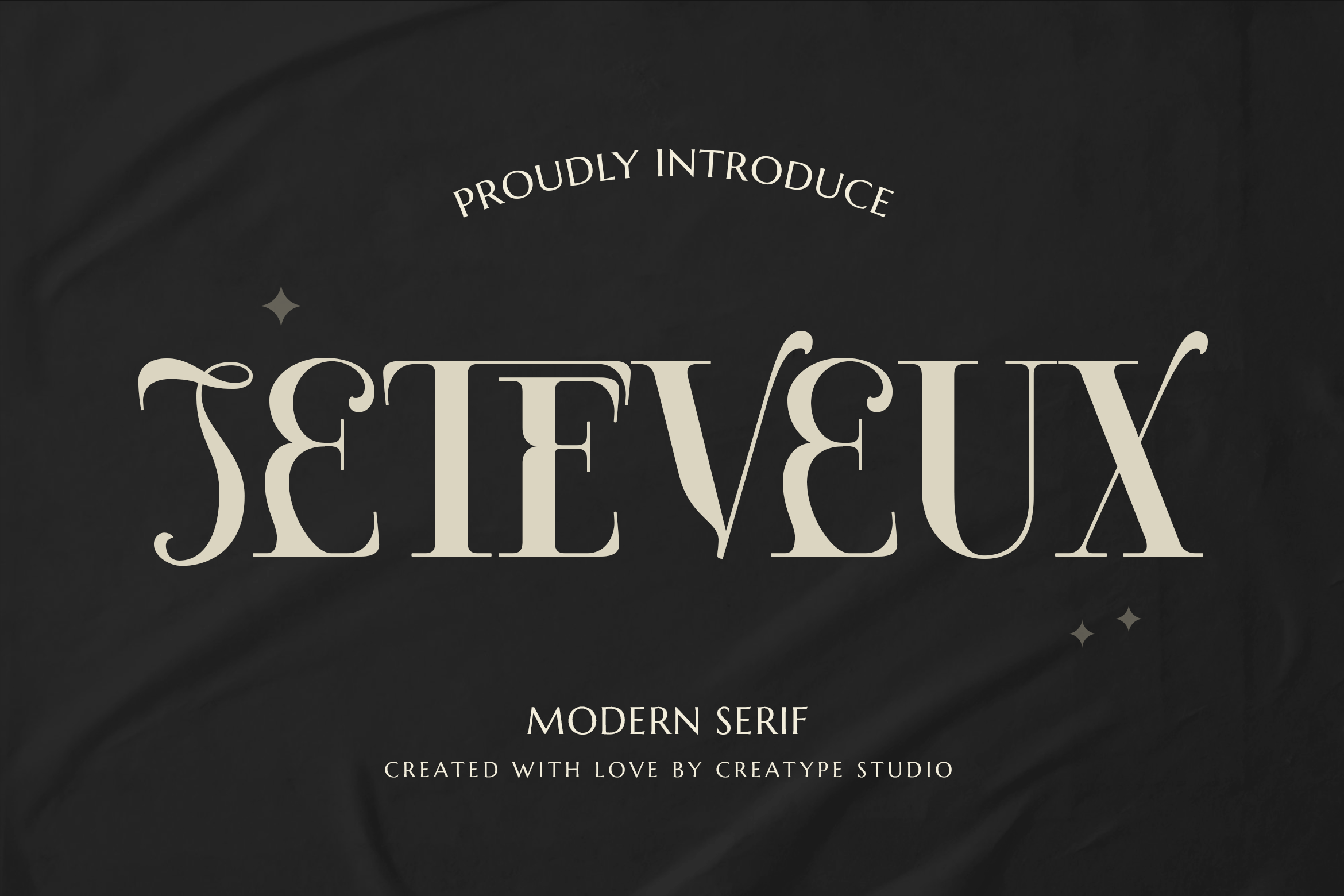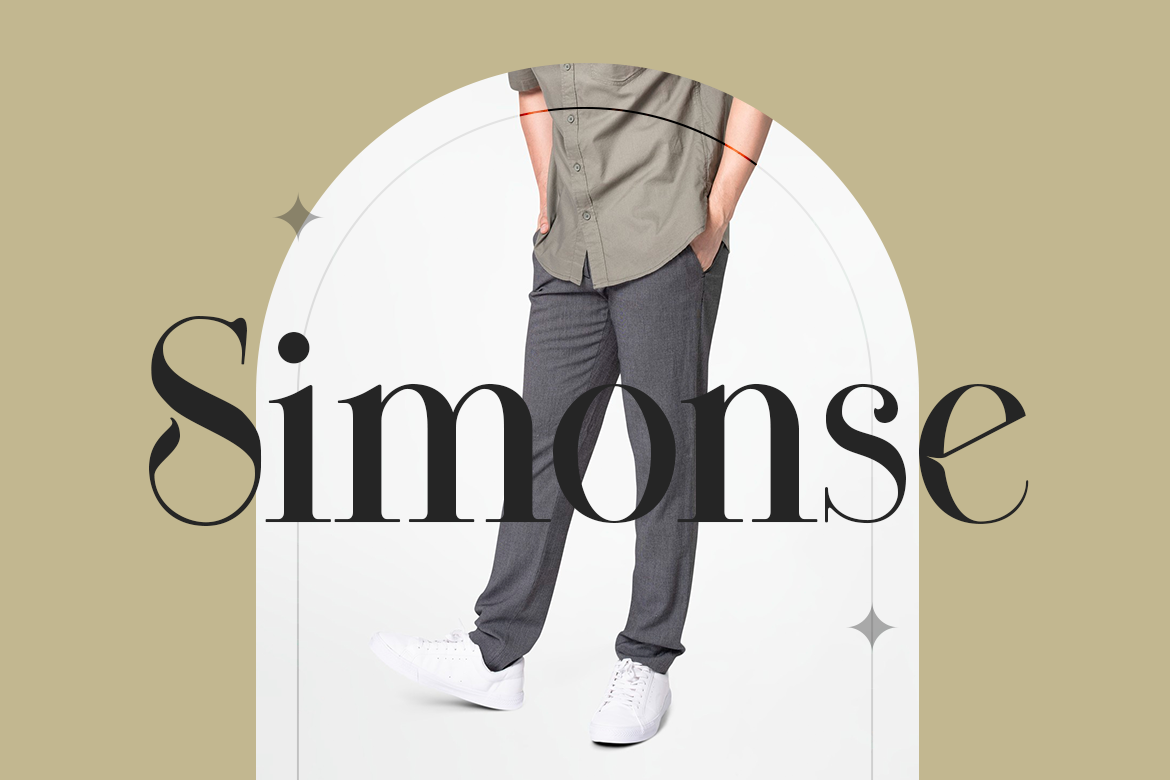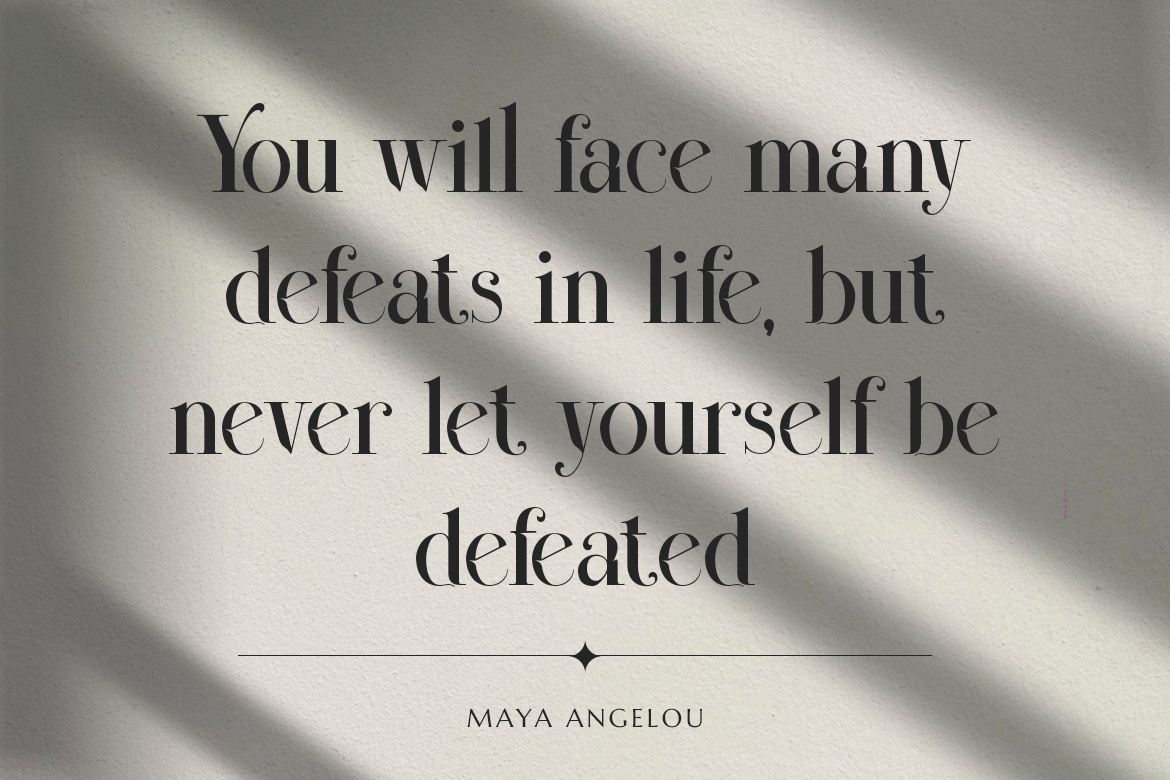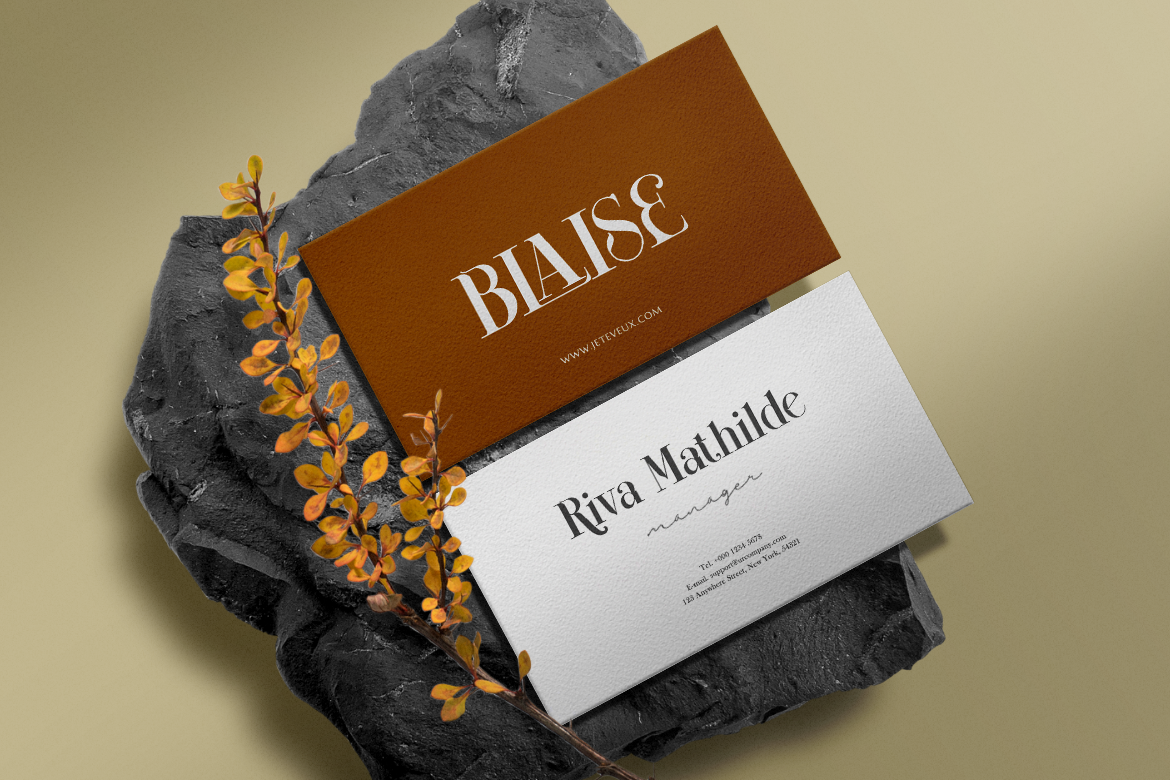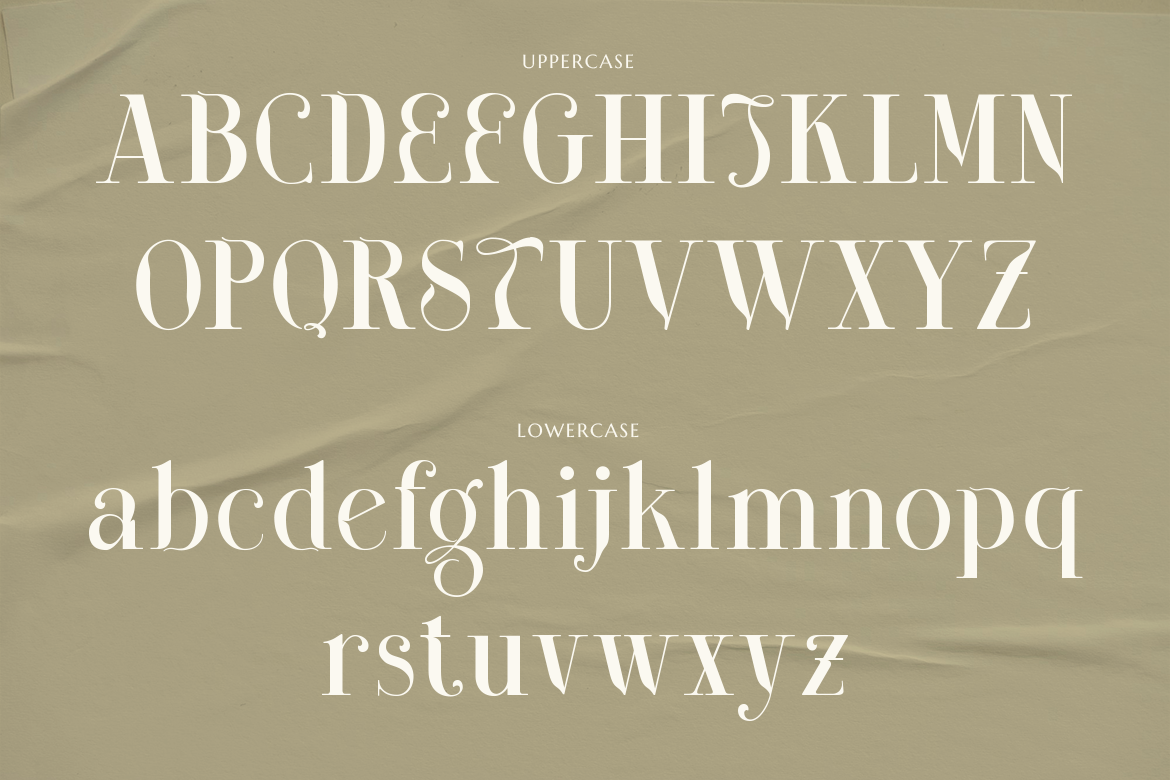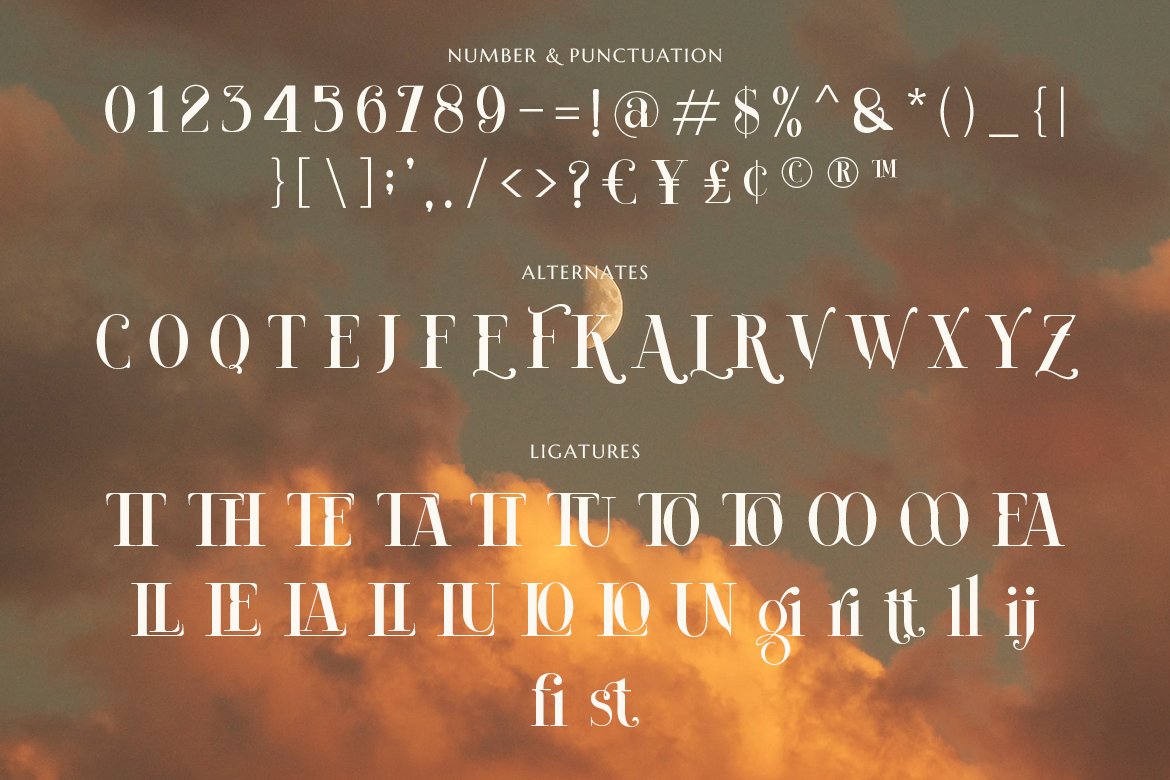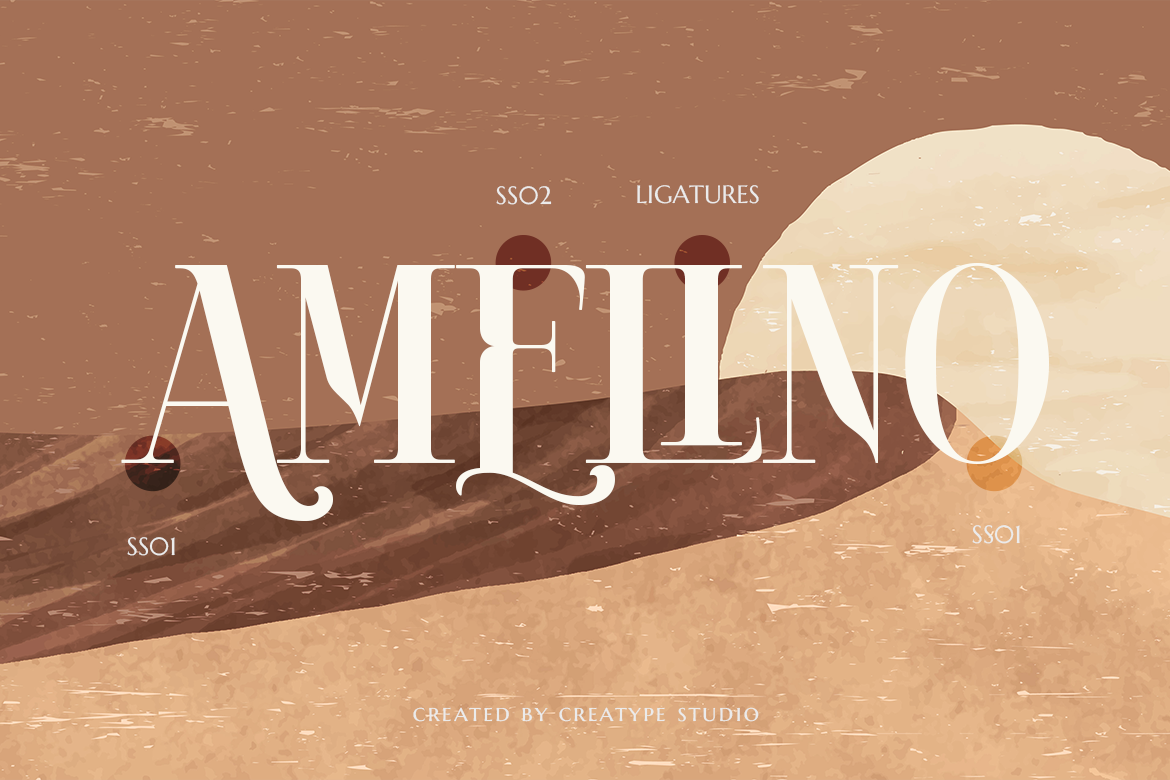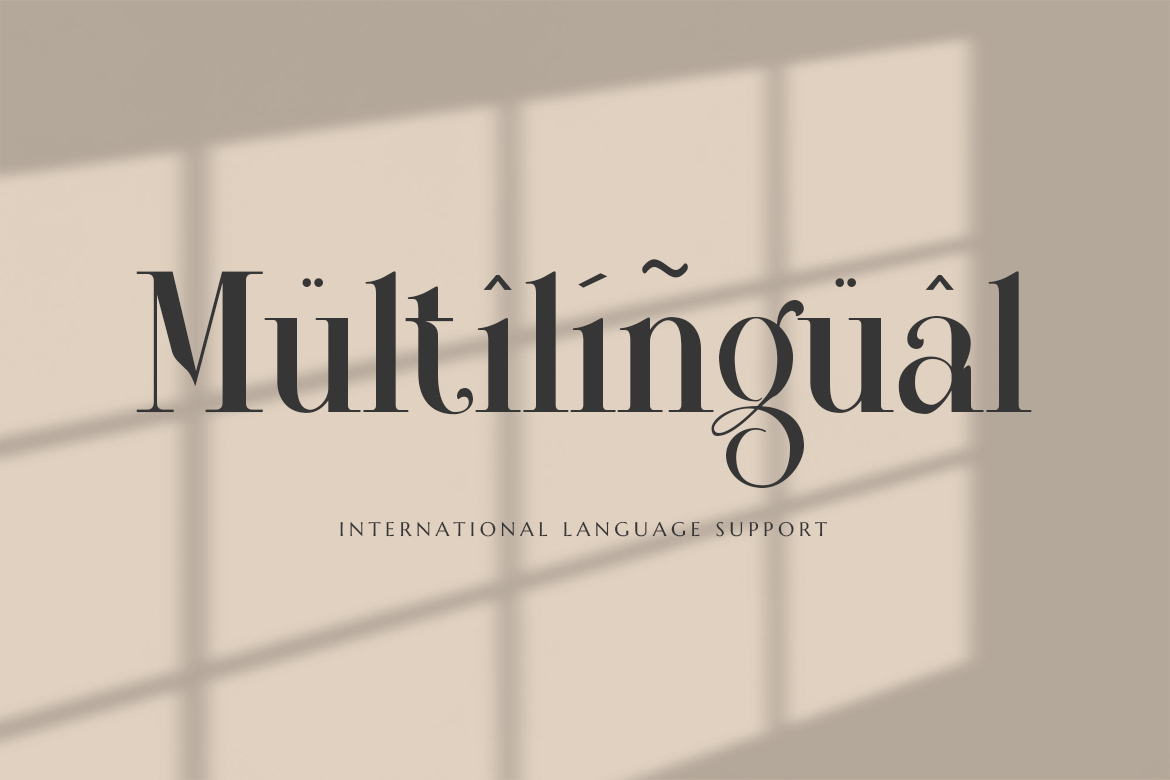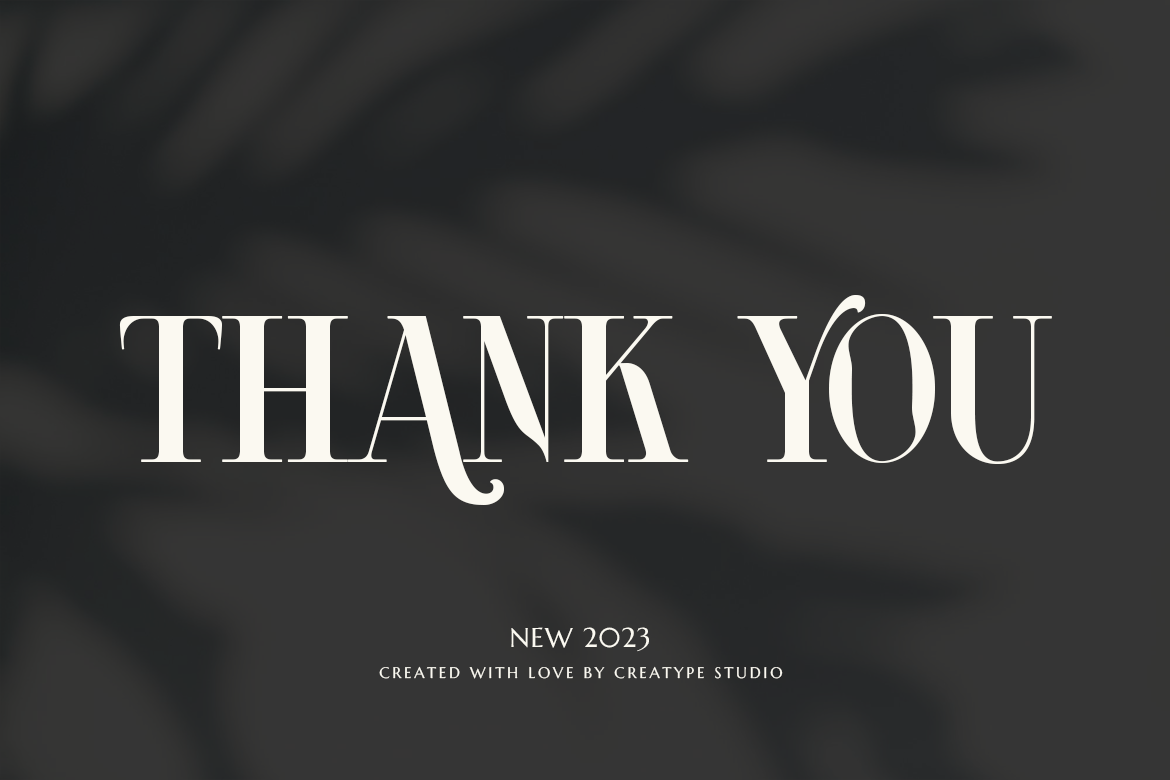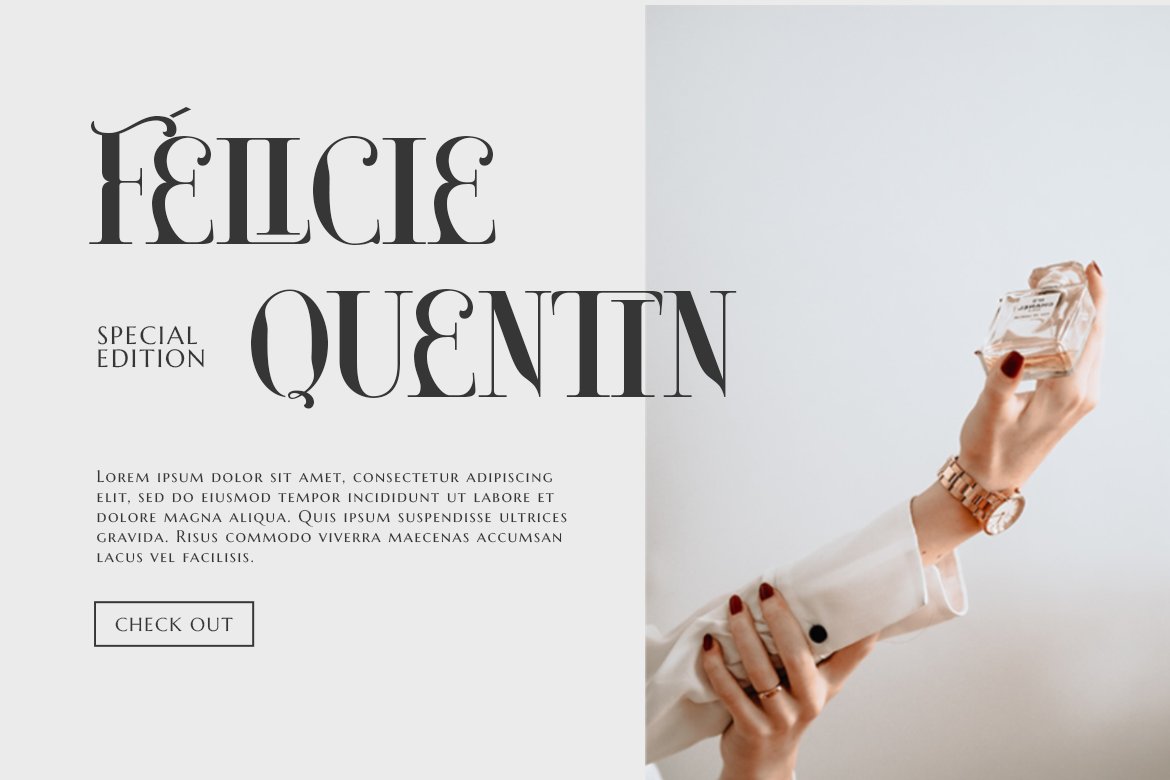
Jeteveux is a quirky and elegant typeface is the perfect way to show off your creativity and give your words the flair they deserve
Jeteveux is perfect for branding projects, logo, wedding designs, social media posts, advertisements, product packaging, product designs, label, photography, watermark, invitation, stationery and any projects that need handwriting taste.
Jeteveux Modern Serif